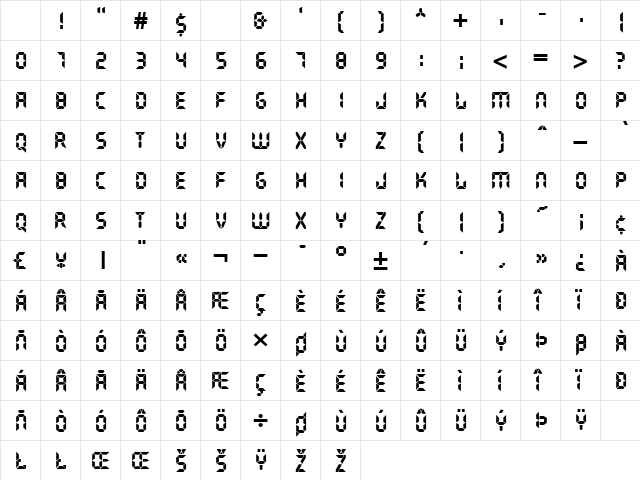
Complete LiquidCrystal Normal glyph index. Displaying only characters natively supported by LiquidCrystal Normal font.
LiquidCrystal is a composed and adaptable typeface that performs quietly and consistently across a wide range of design contexts.